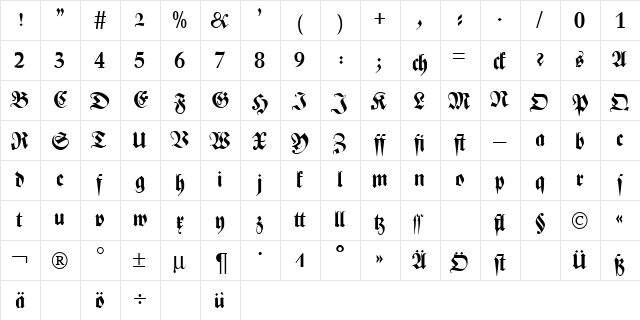
ZenithFraktur Bold
Design Context for ZenithFraktur Typeface
ZenithFraktur draws on the rich tradition of blackletter calligraphy, with dense, angular strokes that evoke medieval manuscripts and old-world craftsmanship. The heavy weight commands attention and anchors typographic hierarchies.
A natural fit for music packaging, gothic editorial design, and any project that needs historical weight.
Font Pairing: Pair with a clean neutral sans-serif for body copy to let ZenithFraktur's character lead without overwhelming the composition.
Pro Tip: Reserve ZenithFraktur for display and logo use — pair it with a clean sans-serif for body copy to prevent the composition from feeling oppressive.